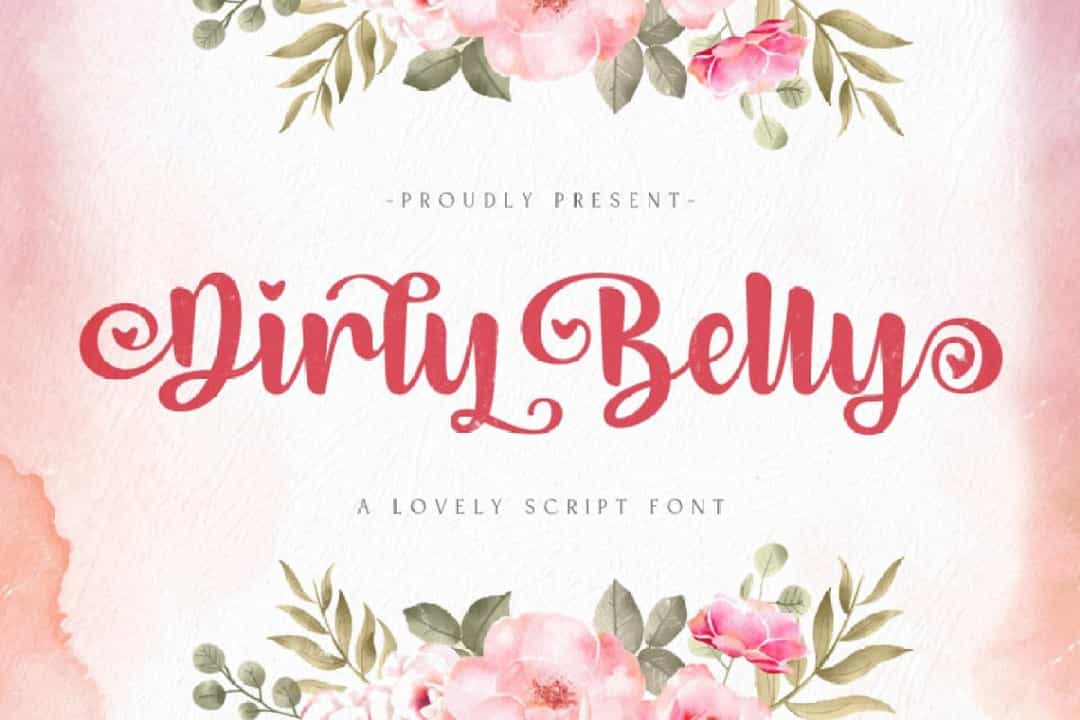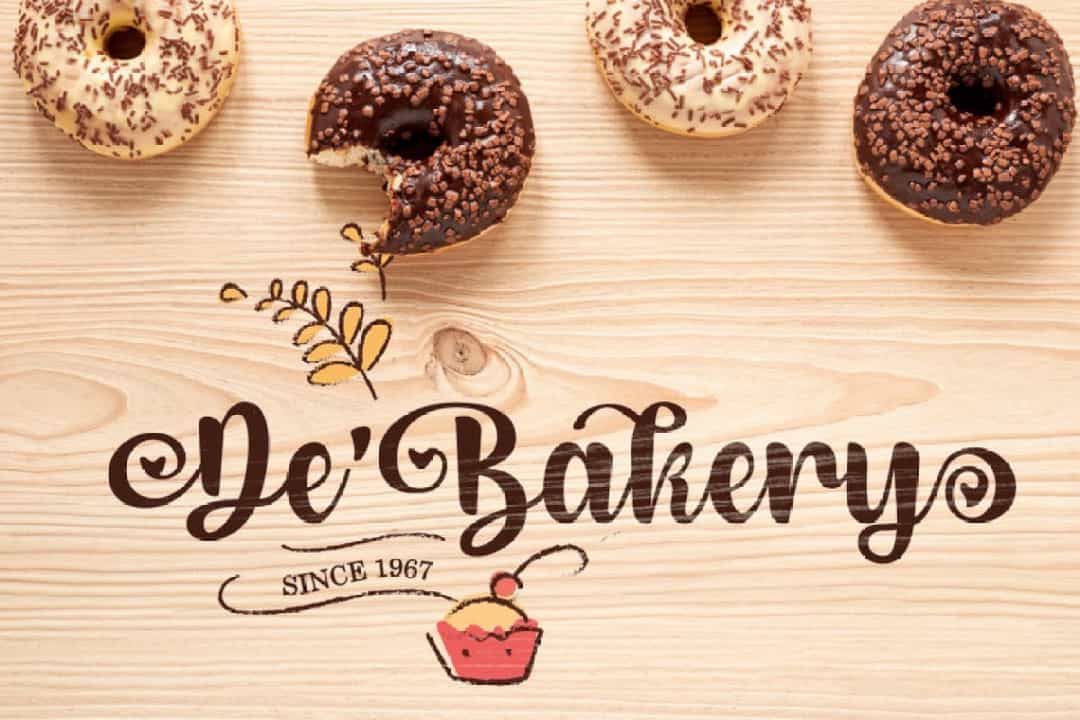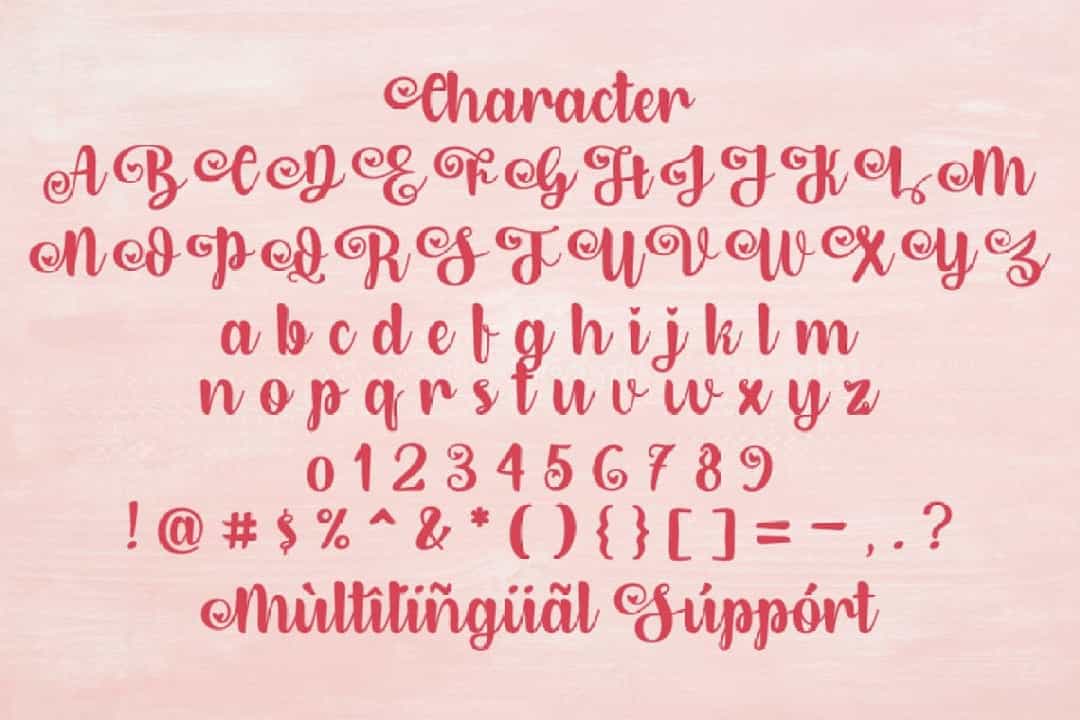
Dirly Belly Font is a cute and bold script font for calligraphy works to make the designs cheerful, cute and modern. You can use Dirly Belly font when writing calligraphic quotes, company logos, and others artworks that you may want to create.